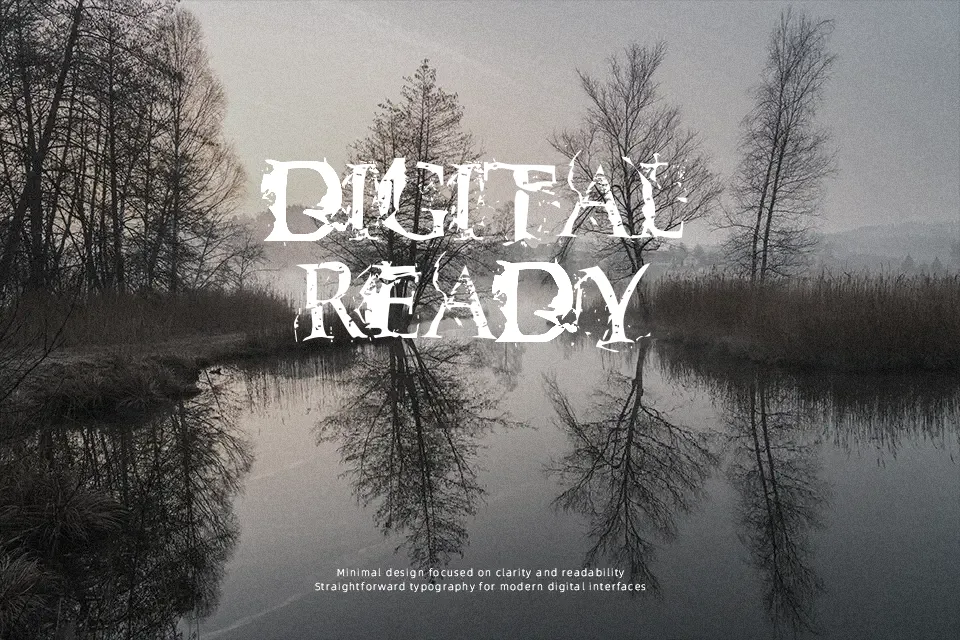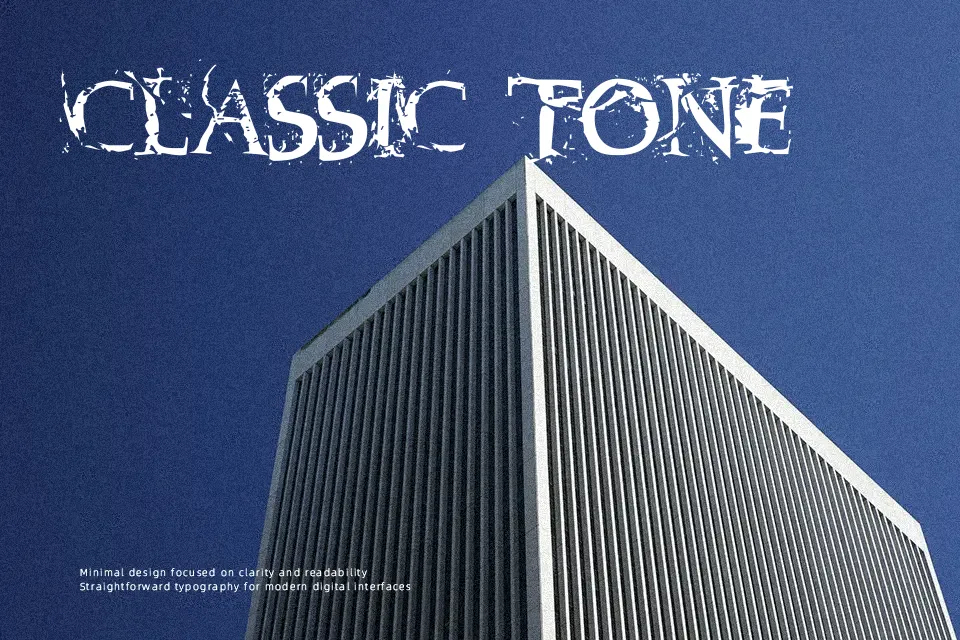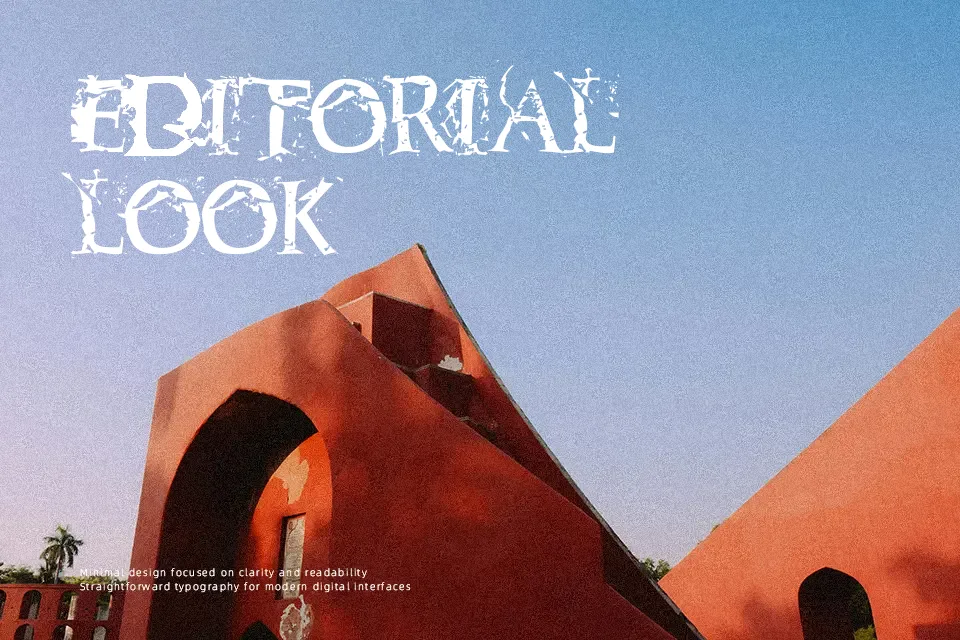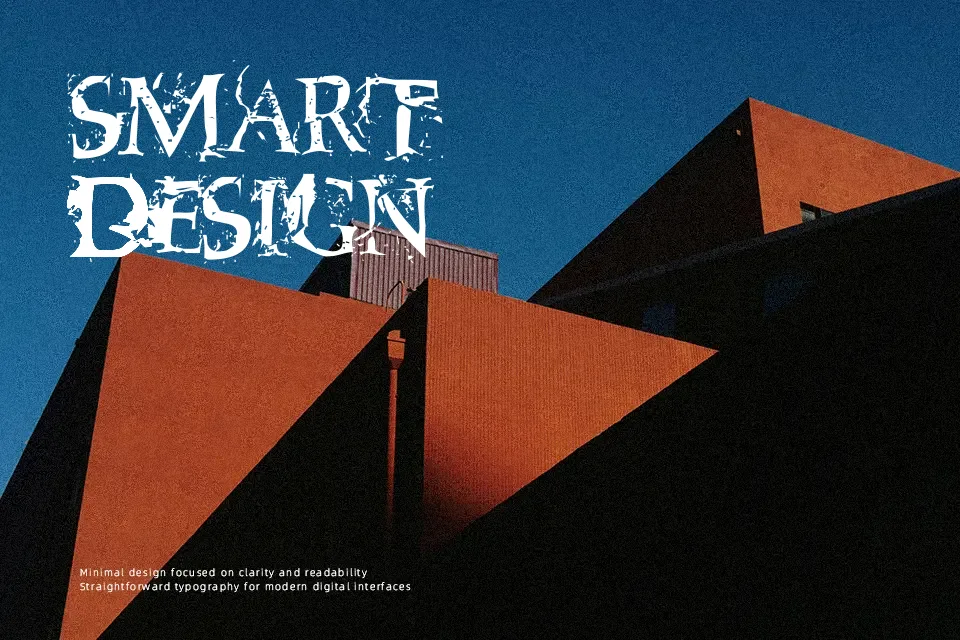
Blasphemy Font
Blasphemy is a highly textured display typeface characterized by its distressed, eroded appearance and bold structural weight. The letters feature rough, irregular edges that mimic the chaotic look of ink splatters and weathered decay, giving the design an aggressively rebellious and underground aesthetic. Unlike cleaner decorative styles, this typography embraces grit and imperfection. It excels when applied to alternative music album covers, extreme sports apparel, or underground gig posters where a rugged visual impact is necessary. However, the heavy erosion and erratic baseline make it entirely unsuitable for standard body text, corporate communications, or minimalist user interfaces. The intricate decay details are best preserved when applied at large point sizes, ensuring the design’s dramatic impact remains completely legible.
Alternative music album covers
Gritty streetwear apparel graphics
Underground event posters
High-impact headline layouts
Small body paragraphs or reading blocks
Clean corporate branding identities
Minimalist website interface elements
Perfect for advertising, film, and headline, with a bold and decorative style.